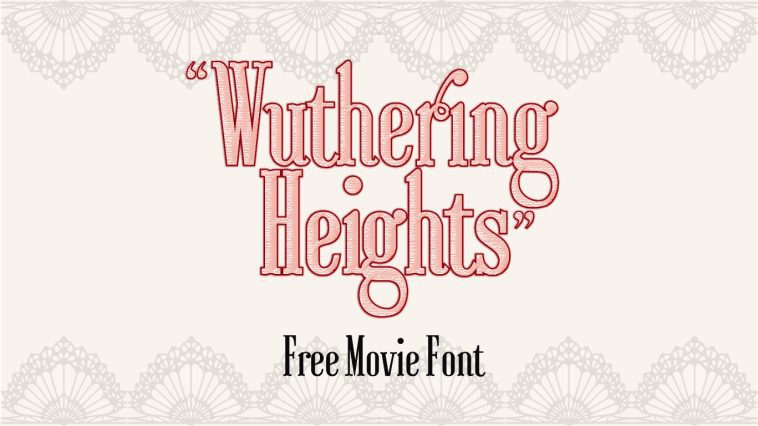
The 2026. Wuthering Heights movie is all the rage now and if you’re here, you must be looking for that awesome font used as a movie title and for promotional purposes of the Wuthering Heights. Unfortunately, the original font is not yet released for the fans (either as a free download or as a purchase) and it seems not likely that it ever will be. This has been revealed by the Chips which is the official author of the font. They mentioned on their Instagram page that the font is created only for the promotional purposes of the movie. However, I still looked around in hopes to find some alternative typeface that could be similar enough to the original and I think I found one.
Free Font Similar to Wuthering Heights Movie Title – Ayres
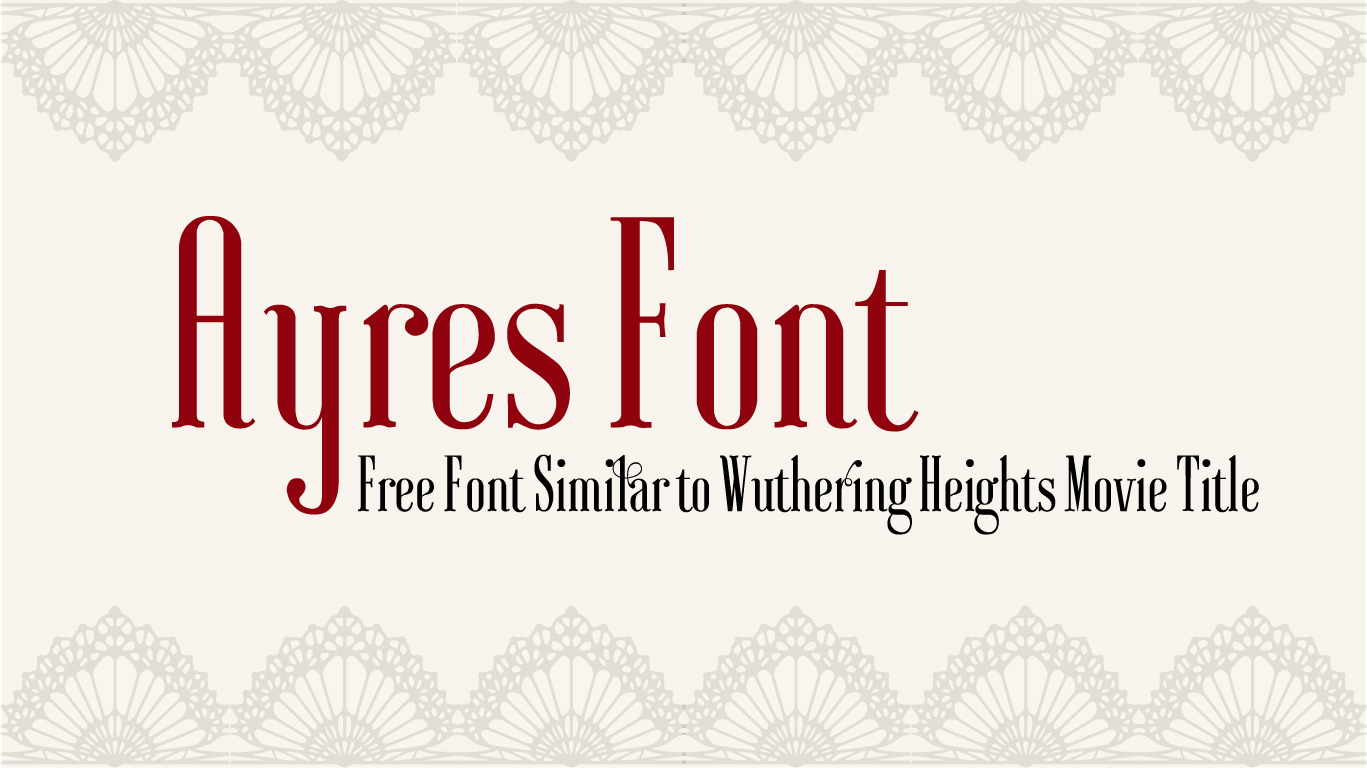
- Designer: Mariel Gornati made this lovely typeface and I chose it as a substitute for the Wuthering Heights font because it has the same condensed look of the original and tall, elegant letters (a bit too elegant perhaps, considering that the original is not as thin as this one). They both seem to have a gothic influence but not overly pronounced. This font is available for free download and additional information about the author can be found in the zip file.
Similar Wuthering Heights Movie Fonts
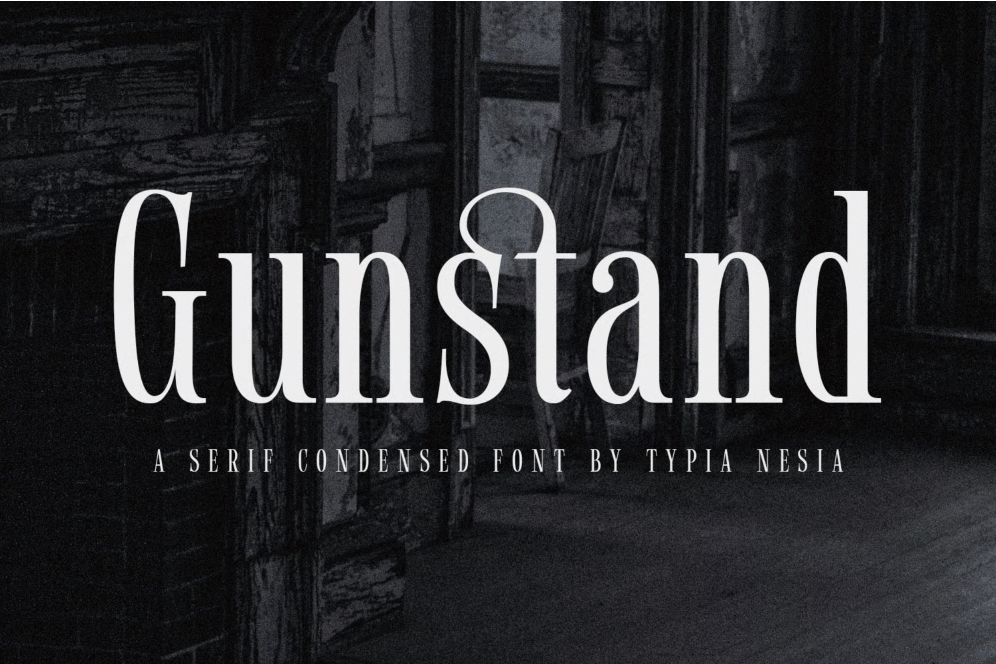
Gunstand Font is in my humble opinion a good replacement for the Wuthering Heights title font. Mainly because its condensed features that also have a few lavish decorations. Its both vintage and modern a the same time.
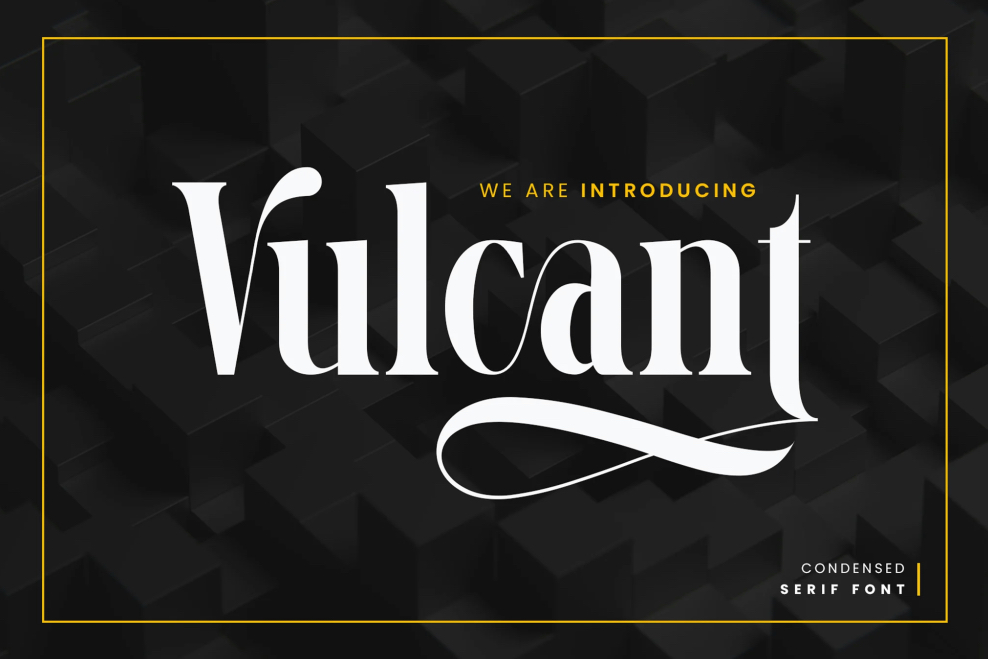
Another great option is Vulcant Font. What I like here is its bold features that are missing on the Ayres Font, the original movie title has a considerable thickness of the letters, it takes away from their elegance a bit but it also brings out the transparent lace pattern that has been added by the author.
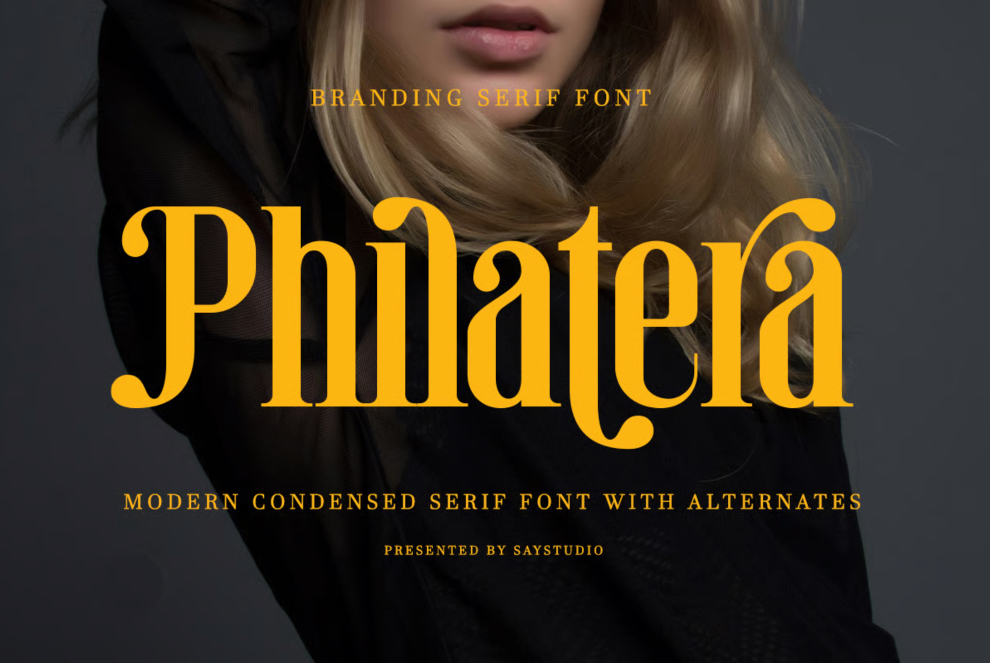
My last choice is Philatera typeface. This one is maybe the farthest from the original, I think it lacks the gothic sharpness but I still think it a good substitute for the Wuthering Heights typeface. It’s romantic, bold and condensed which are all features of the original as well.